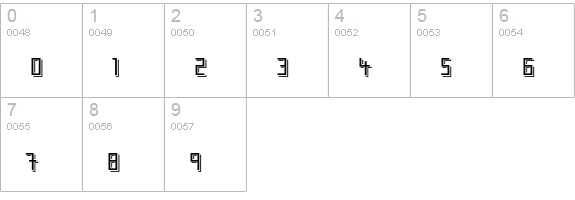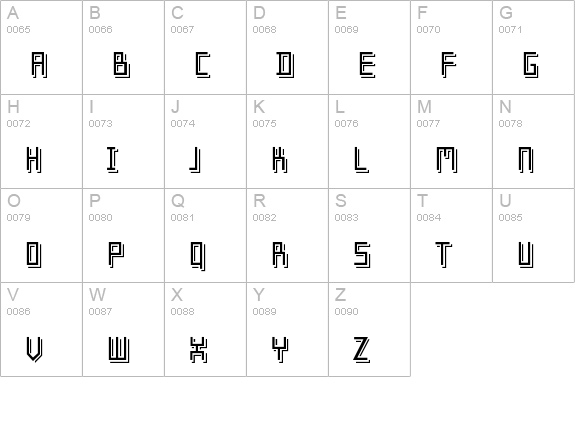
Minimum-Toc Font Details
Minimum-Toc font is a sleek and modern typeface that exudes sophistication and elegance. With its clean lines and minimalistic design, this font is perfect for adding a touch of class to any project. The sharp angles and precise spacing of Minimum-Toc make it ideal for headlines, logos, and other prominent text. What makes Minimum-Toc even more appealing is that it is available for free download at FontsMarket.com. This means that you can elevate your designs without breaking the bank. Whether you're a professional graphic designer or a hobbyist looking to enhance your creations, Minimum-Toc is a versatile and stylish font that will surely impress. Download it today and see the difference it can make in your projects.